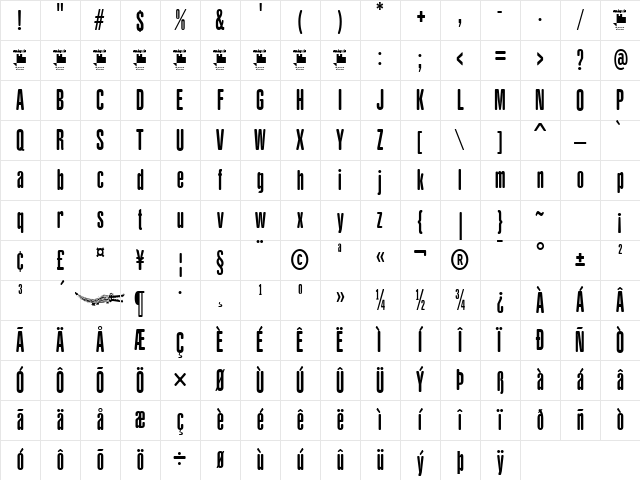
Yacarena Ultra FFP Regular Free Font
Yacarena Ultra FFP Regular
Foundry: deFharo
Designer: deFharo
Design Context for Yacarena Ultra FFP
Yacarena Ultra FFP is a composed and adaptable typeface that performs quietly and consistently across a wide range of design contexts.